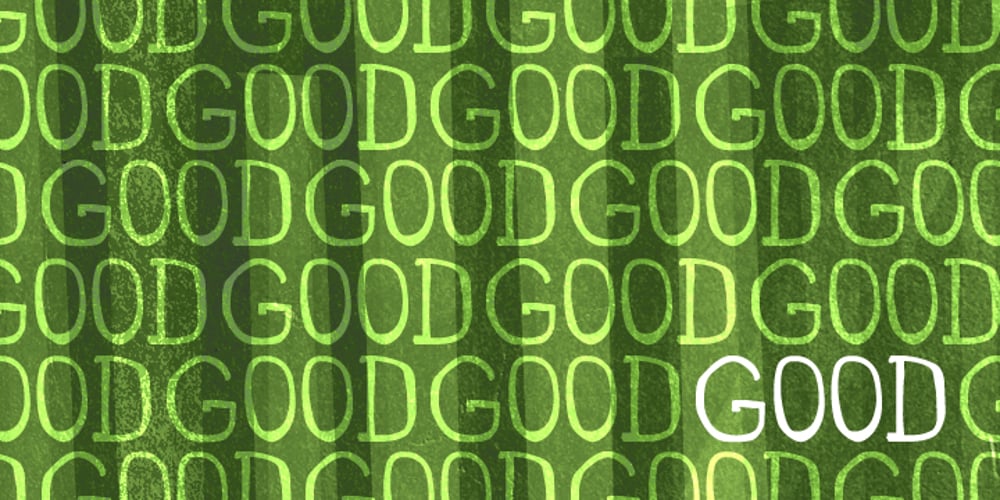
White Rose Font Family was designed by Josiah Werning and published by The Good Type. White Rose contains 1 styles and family package options. White Rose is an original hand-drawn typeface that was made for the White Rose Catholic Worker house in Chicago. White Rose (the Catholic Worker house) follows a long tradition of providing hospitality, being active and involved in the community and living a sustainable lifestyle. In the same way, White Rose (the typeface) follows a long tradition of typefaces, mimicking Old Style and Transitional forms while retaining an element of style.